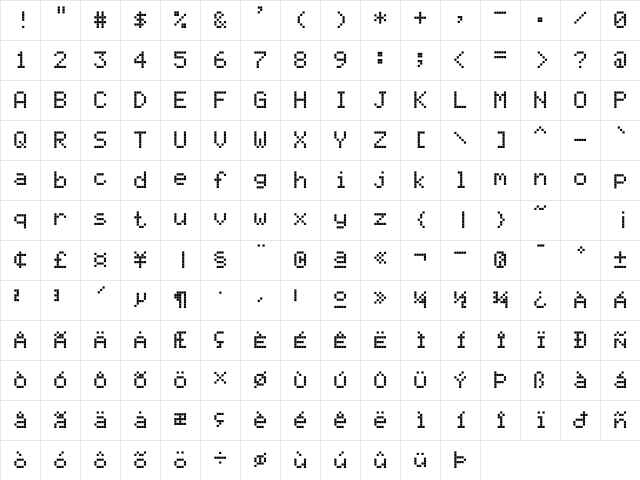
AlphaSmart 3000 Regular
Foundry: The Monotype Corporation
Designer: Monotype Type Drawing Office - Robin Nicholas, Patricia Saunders 1982
Design Context for AlphaSmart 3000
AlphaSmart 3000 is a composed and adaptable typeface that performs quietly and consistently across a wide range of design contexts.